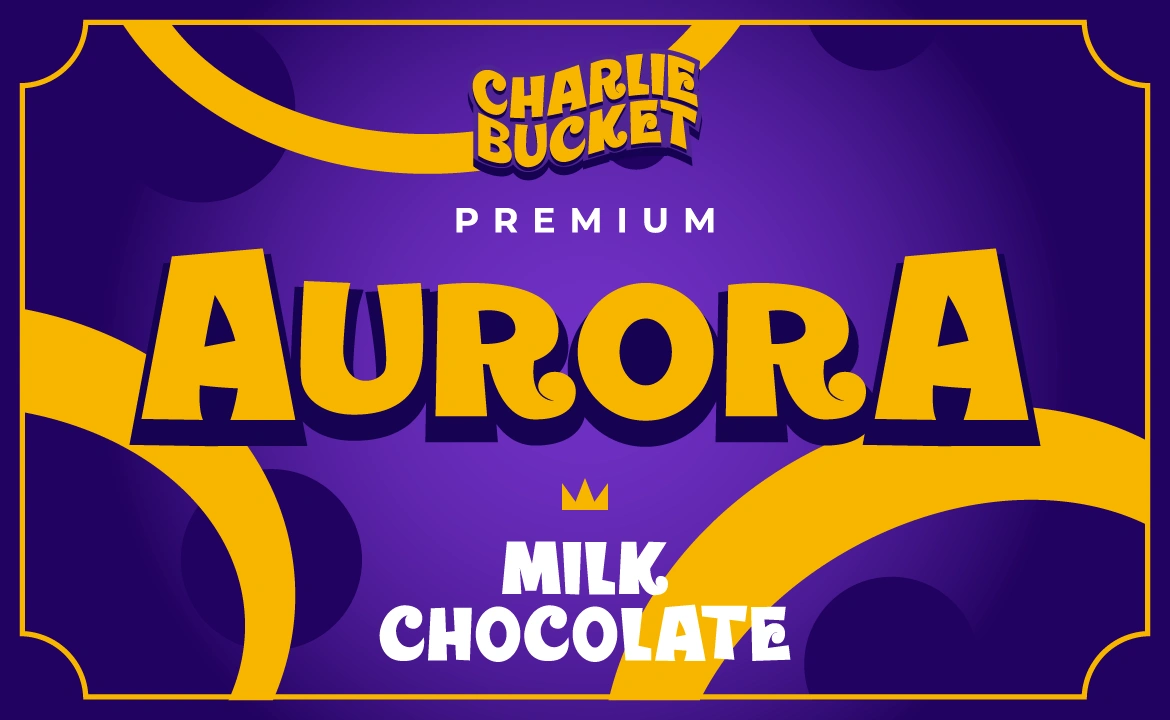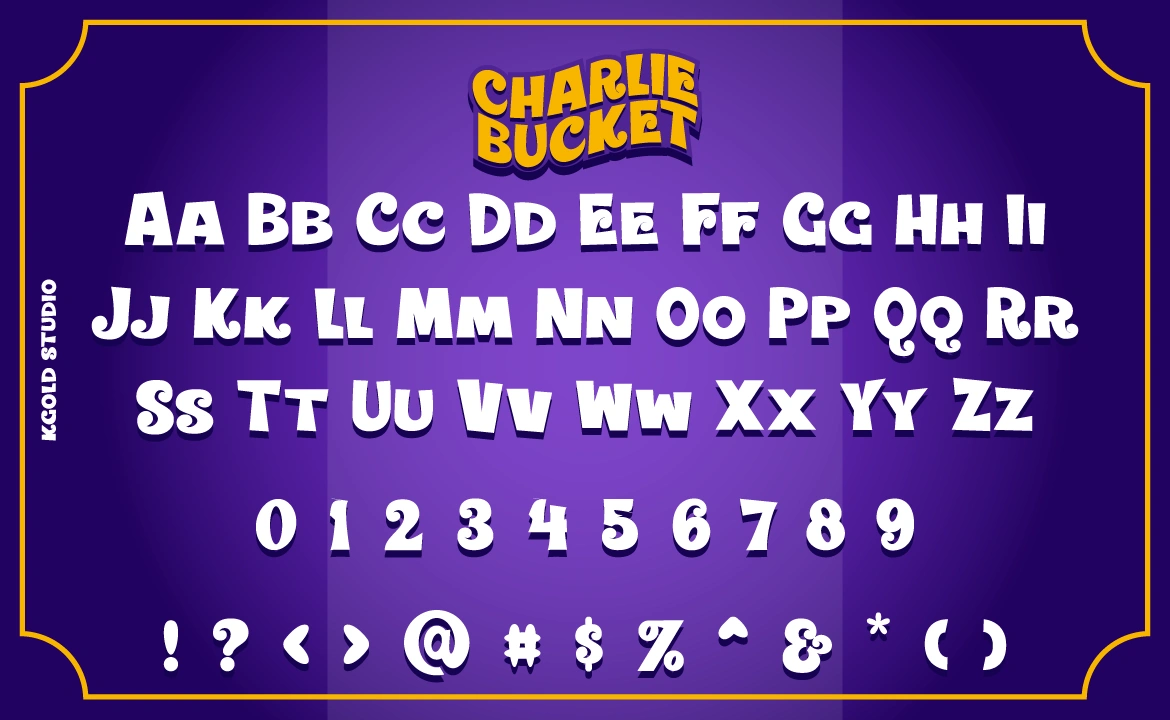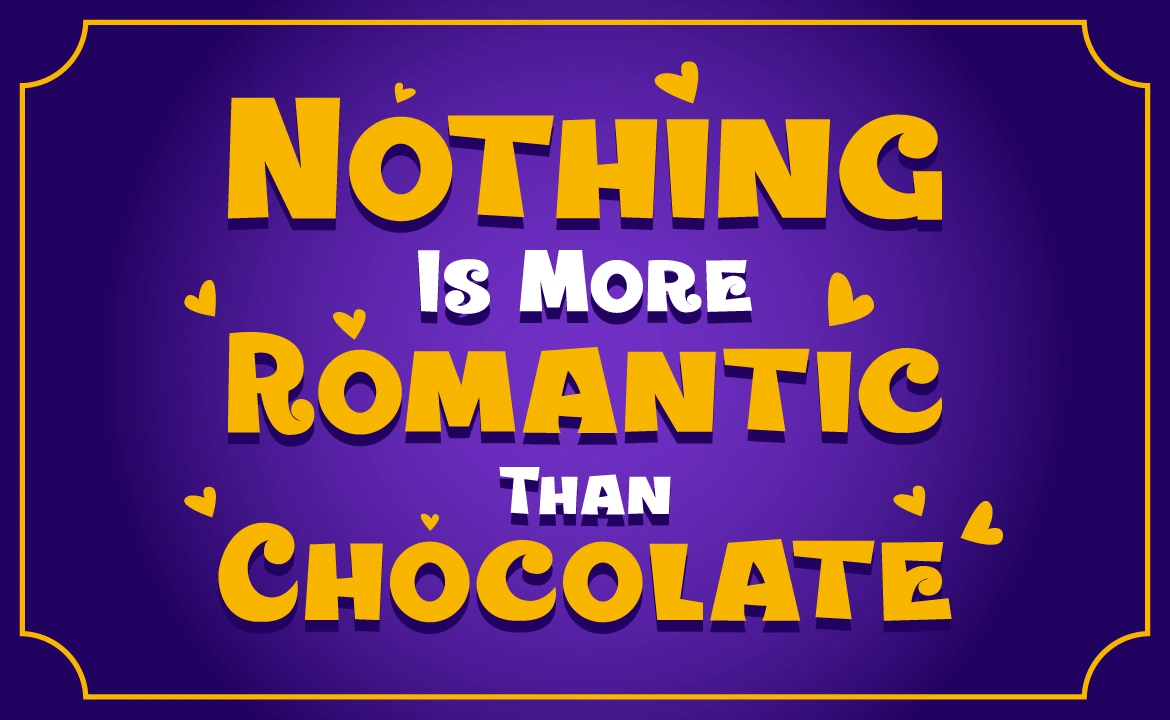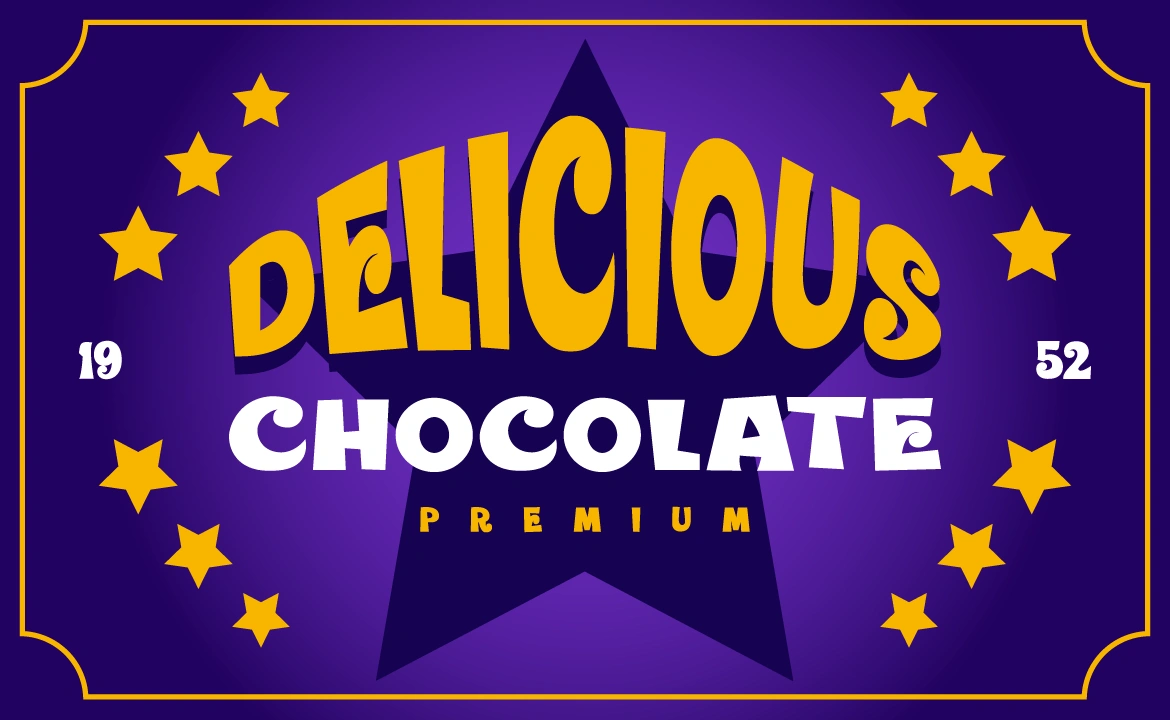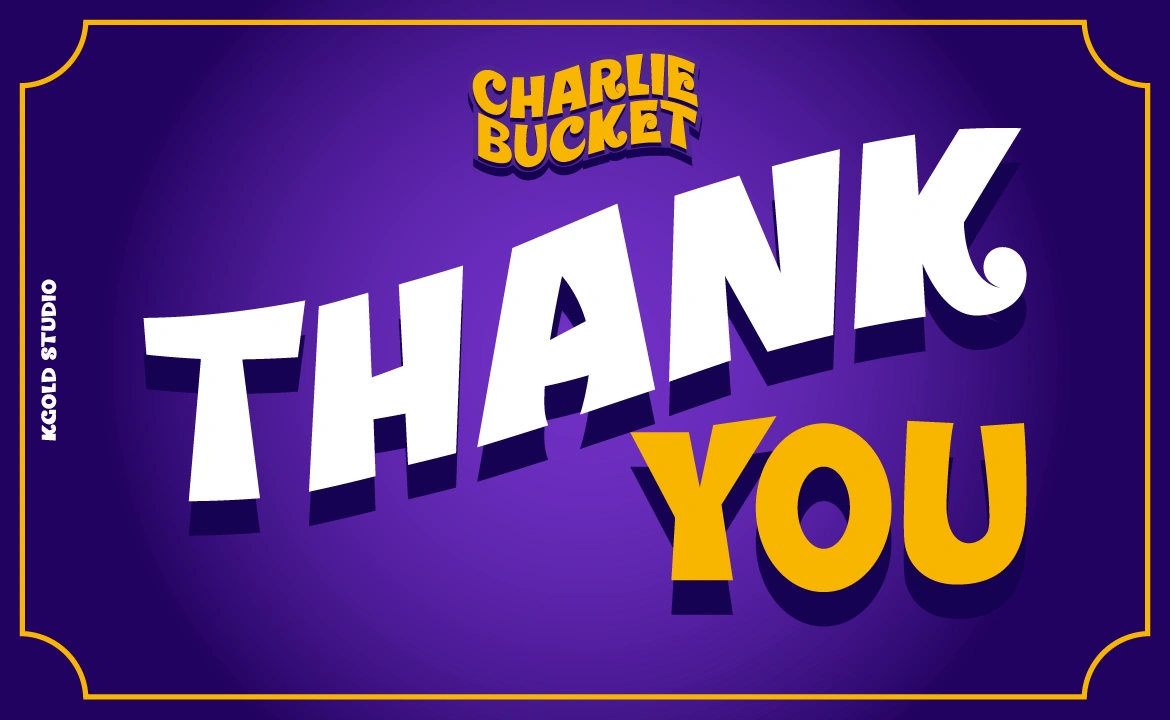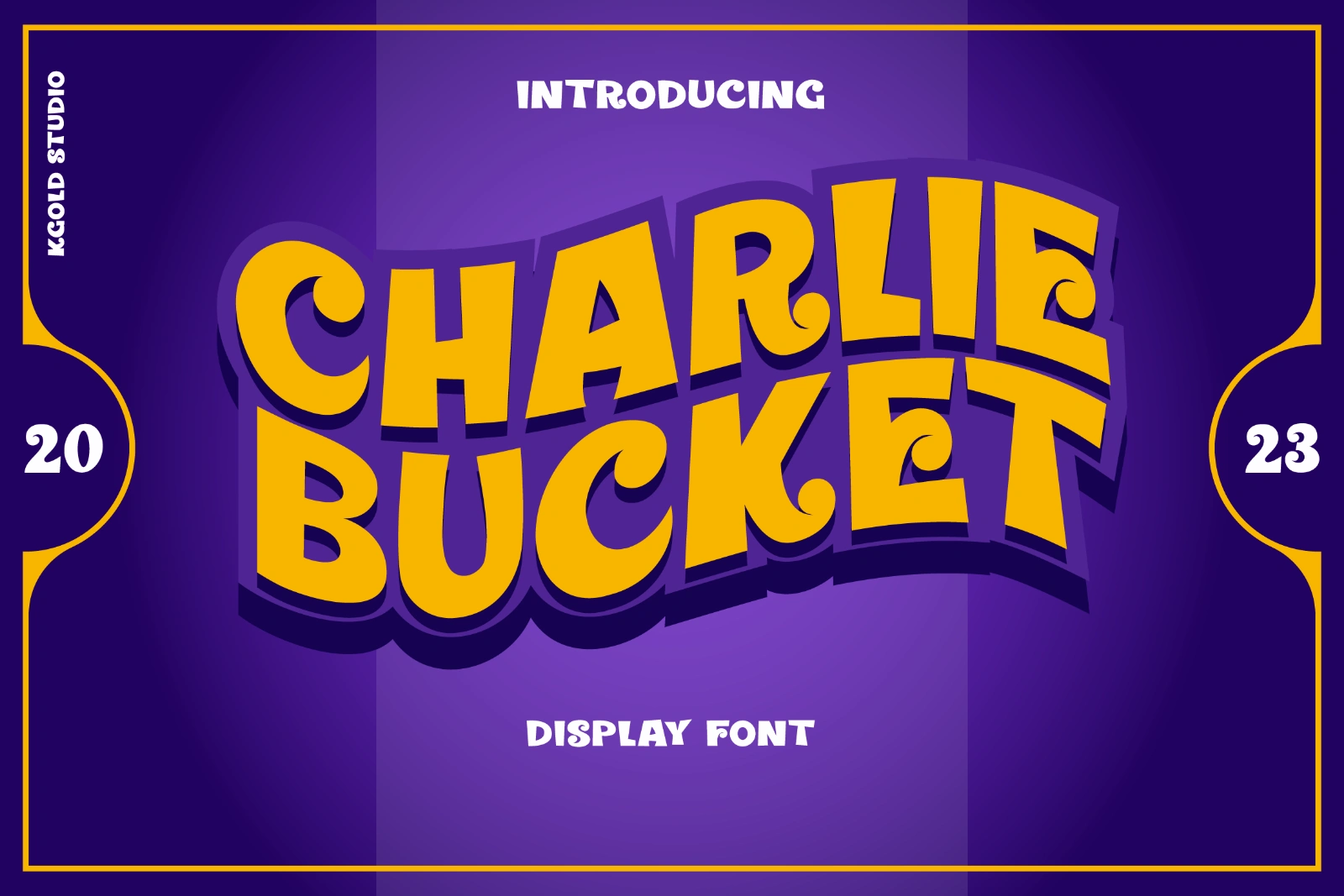
Charlie Bucket is a delightful display font that exudes a sense of whimsy and nostalgia. Its classic design harkens back to a bygone era, reminiscent of vintage candy shops and childhood wonder. With its playful curves and elegant strokes, this font brings a sense of joy and innocence to any project it graces.
Perfect for capturing attention and adding a touch of charm to your designs, "Charlie Bucket" is sure to evoke fond memories and enchant your audience with its timeless appeal.